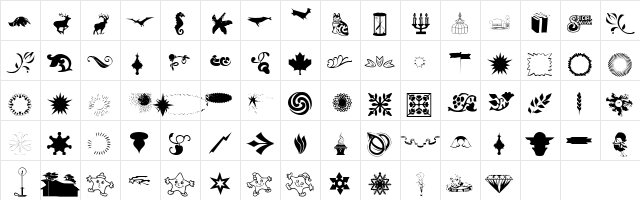
Design Context for FreeMix Typeface
FreeMix is a composed and adaptable typeface that performs quietly and consistently across a wide range of design contexts.
Pro Tip: Use FreeMix in both headline and body roles to test its range before committing to a single application.